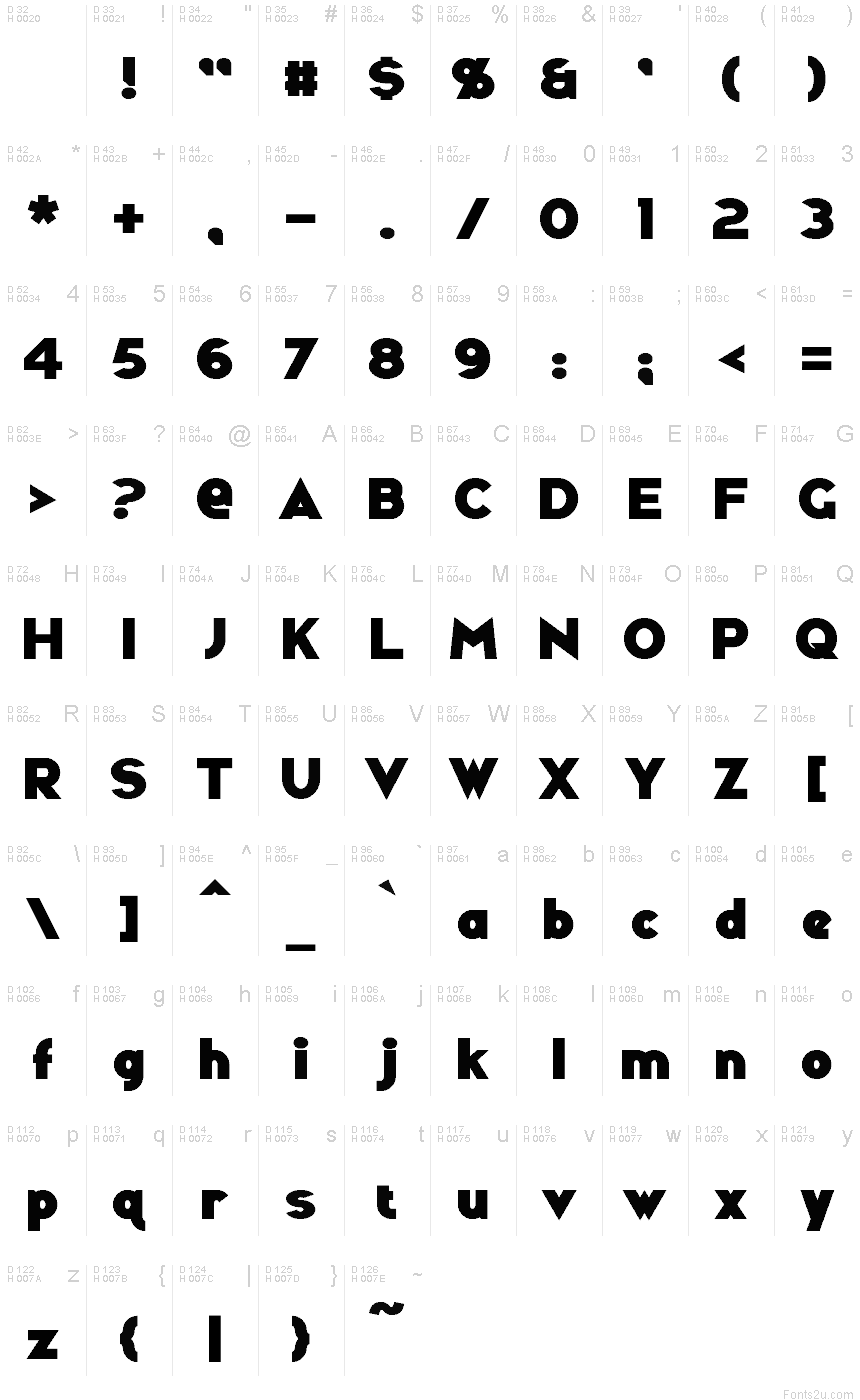
Ravenwood
This bold, rounded art-deco typeface is based on the logo of Hasbro's Indiana Jones merchandise from the "Crystal Skull" movie. Includes accented characters, Euro.